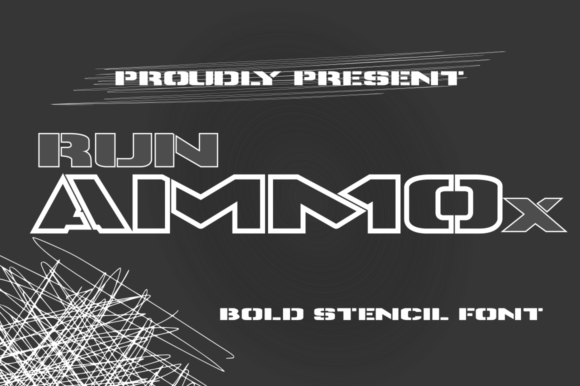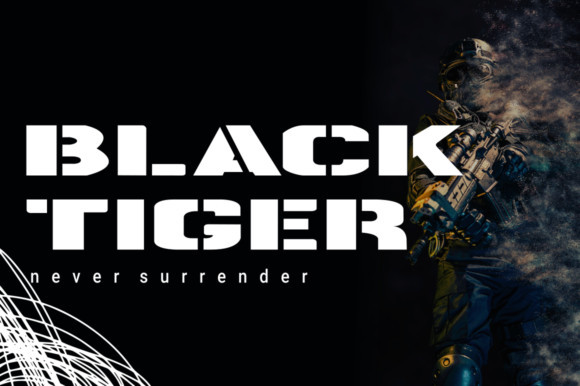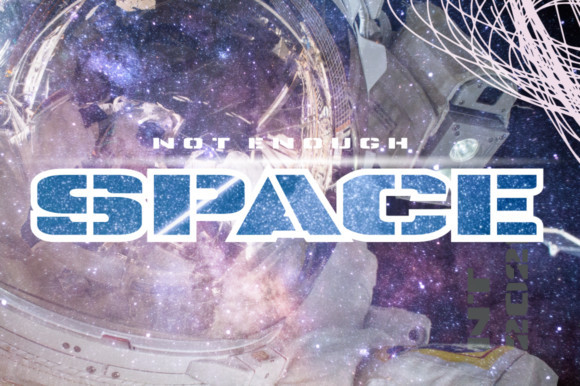
Runammox Font
Runammox is a bold slab stencil display font. It will add a distinct touch to your designs. Add this beautiful display font to each of your creative ideas and notice how it makes them stand out!